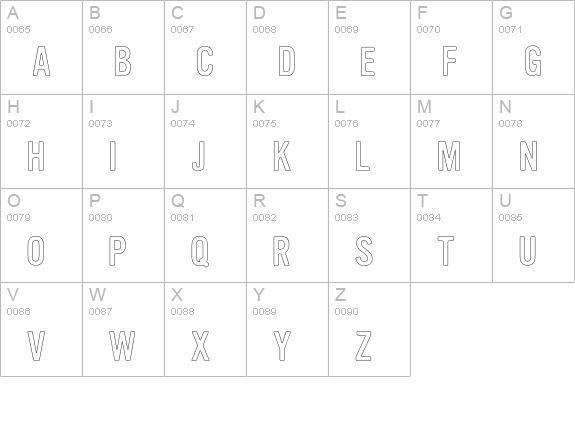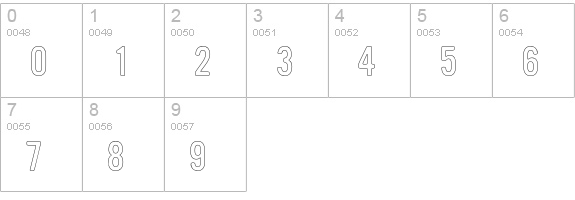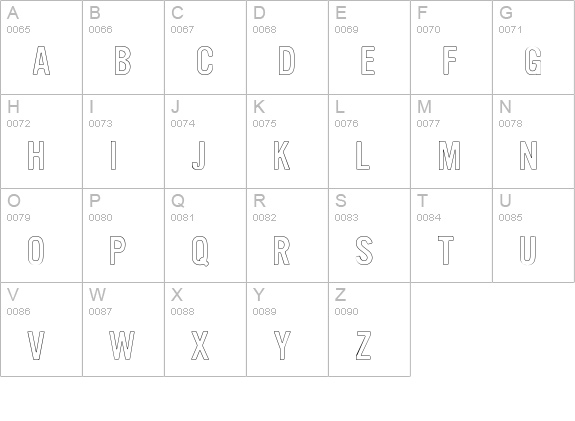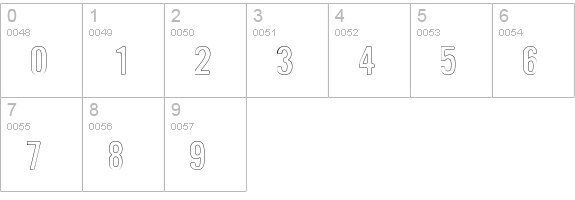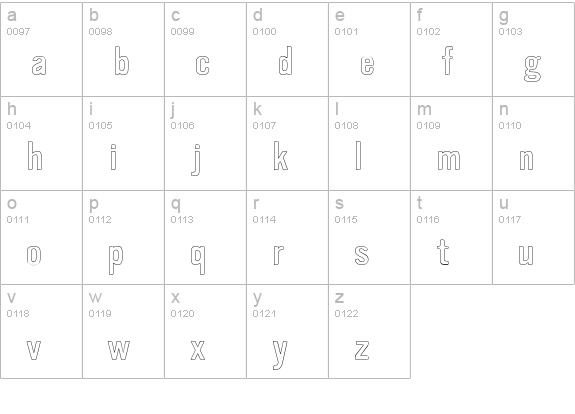
VinylOutline Font Details
VinylOutline font is a stunning display typeface that exudes a timeless vintage charm. With its bold and distinct outlines, this font captures the essence of retro design and adds a touch of sophistication to any project. The clean lines and smooth curves of VinylOutline make it a versatile font that can be used for various purposes, from logo designs to headlines and posters. Its unique style commands attention and instantly transports your audience to a bygone era. What sets VinylOutline font apart is not just its visual appeal, but also its accessibility. This font is freely available to download at FontsMarket.com, making it a valuable asset for both personal and commercial projects. Whether you're a professional designer or a hobbyist, you can enjoy the benefits of this font without having to worry about any licensing restrictions. VinylOutline font is compatible with various design software, allowing you to seamlessly incorporate it into your creations. Its versatility extends to different platforms and devices, ensuring that your typography looks flawless across the board. So, if you're looking to add a touch of nostalgia and elegance to your designs, VinylOutline font is the perfect choice. Download it for free at FontsMarket.com and unleash your creativity with this timeless typeface.